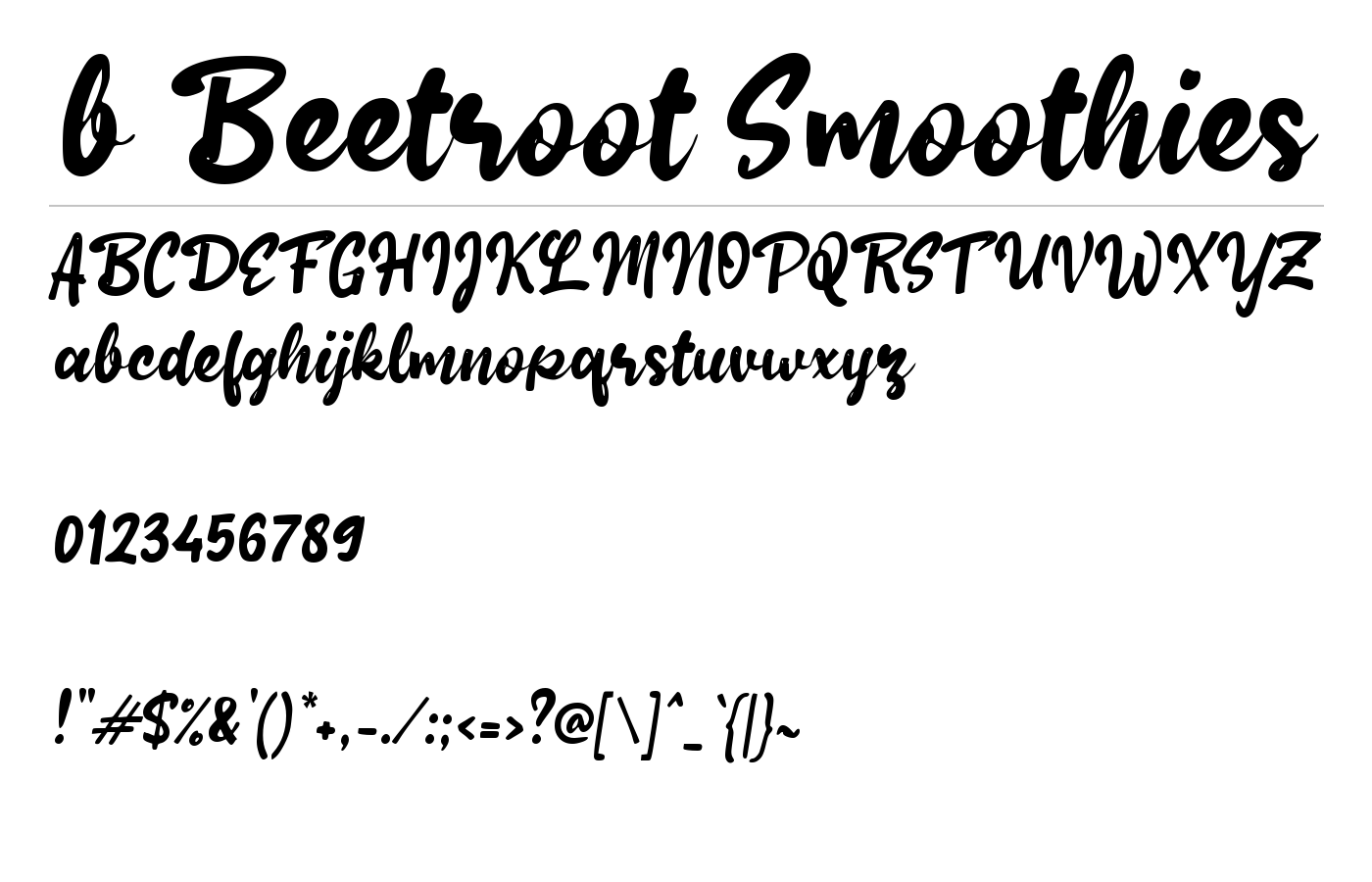
Beetroot Smoothies is a bold, playful script font with smooth, rounded strokes that create a friendly and inviting feel. Its casual yet polished style makes it perfect for branding, packaging, and headlines where a lively, creative personality is desired. This font works well for projects aiming to convey warmth and approachability with a modern handwritten charm.
b Beetroot Smoothies Font
About b Beetroot Smoothies Font